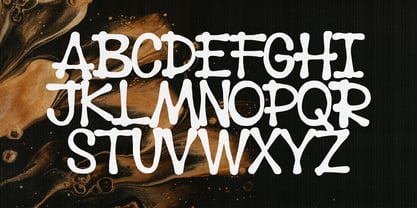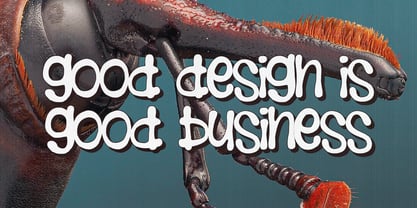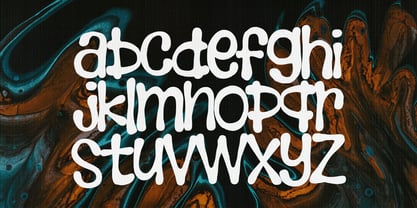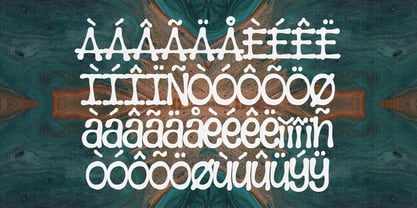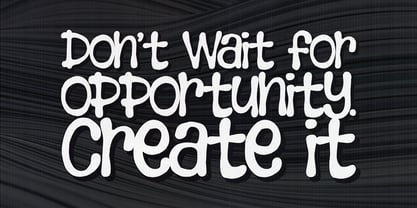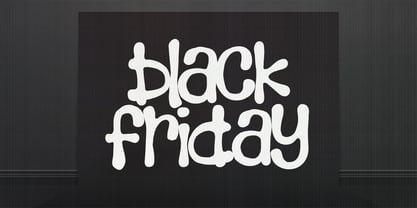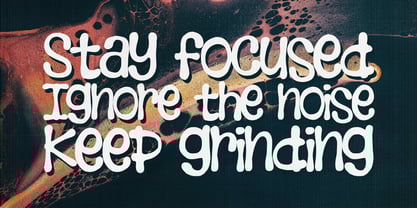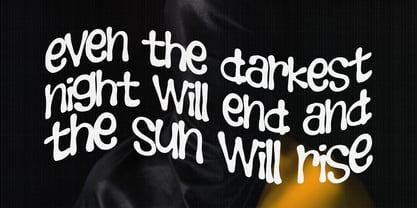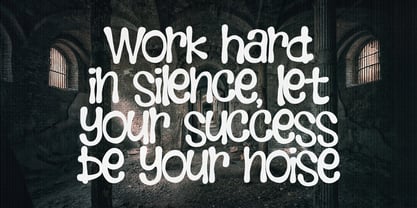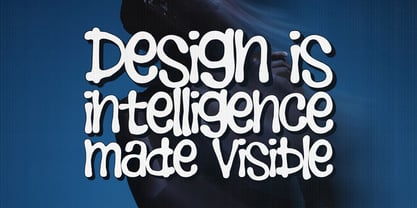
Gloopy Toons
by Fargun Studio
The Gloopy Toons Font Family was designed by Fajar Gunawan and published by Fargun Studio. Gloopy Toons contains 2 styles and family package options. More about this family
Dive into creativity with this unique drip water style font, where every letter looks like it’s melting or freshly dipped in liquid! Perfect for summer themes, beverage branding, splashy designs, pool party invites, or anything that needs a cool, refreshing twist. The fluid, organic shapes give your text a dynamic and eye-catching appearance—like it’s alive and in motion.
Whether you’re designing posters, logos, or digital artwork, this font makes a splash and turns heads with its wet, glossy aesthetic. Add some chill to your visuals!